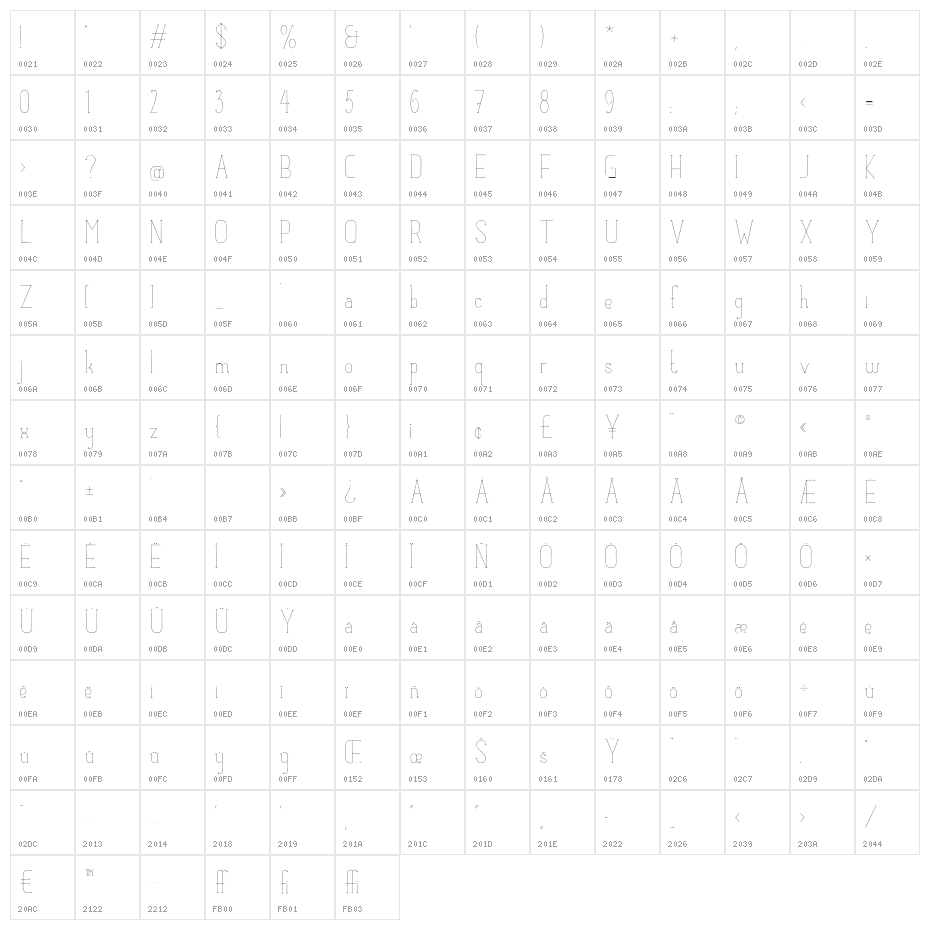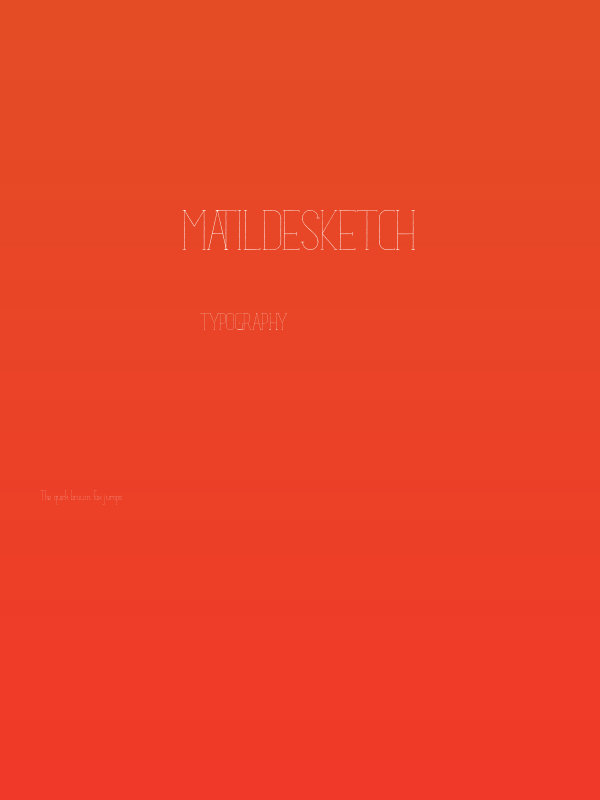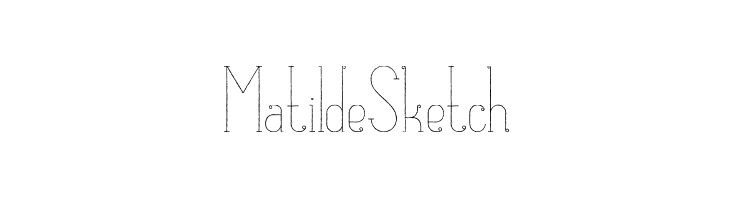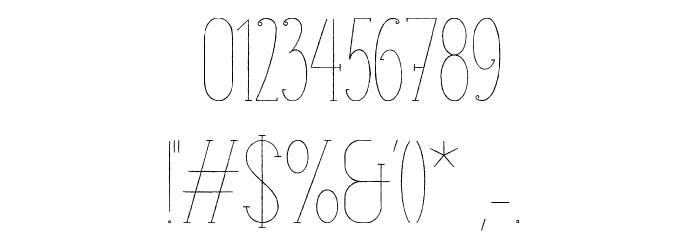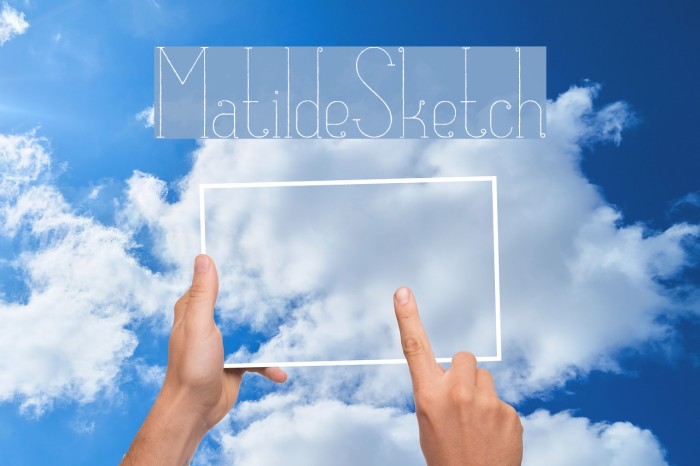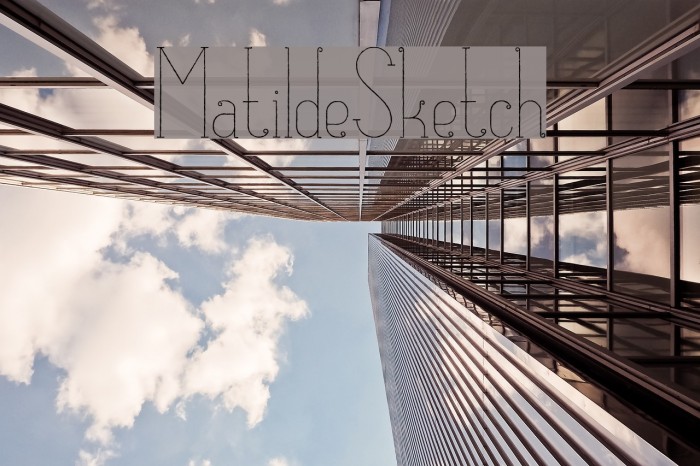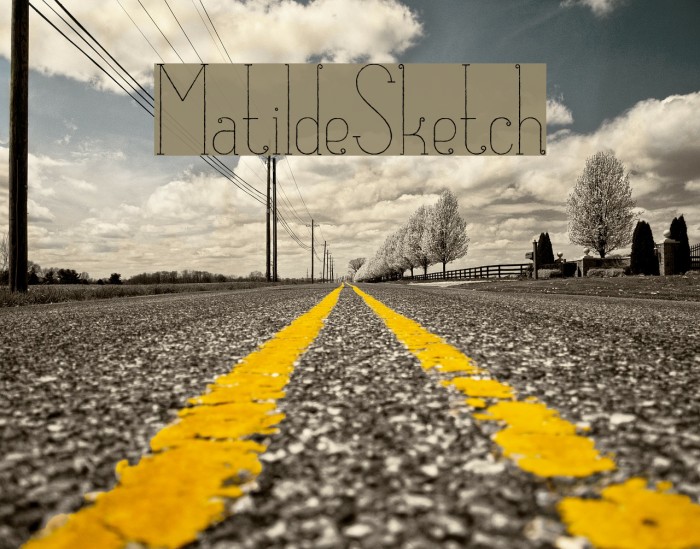
MatildeSketch Font
MatildeSketch Description
This font features a delicate and sketch-like appearance, characterized by thin, hand-drawn lines that give it a whimsical and artistic feel. The uppercase and lowercase letters maintain a consistent height, with slight variations in stroke width that add to its charm. The numerals and special characters are crafted with the same attention to detail, ensuring a cohesive look across all glyphs. The font's unique style makes it stand out, offering a playful yet sophisticated aesthetic suitable for creative projects.
| Use Case | Logos, Invitations, Artistic projects |
| Proposed Projects | Ideal for artistic projects, invitations, greeting cards, and creative branding. |